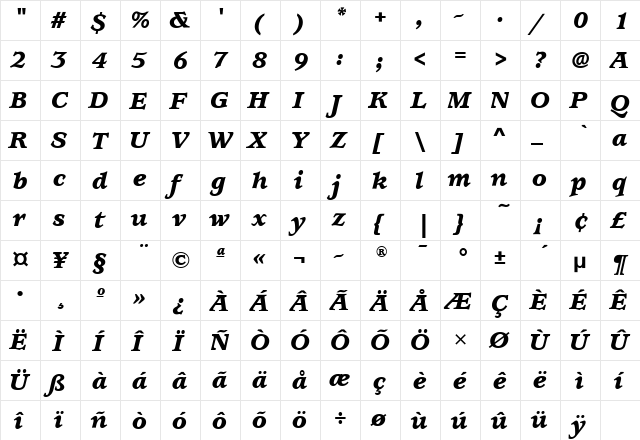
UsherwoodMdITC Black Italic
Design Context for UsherwoodMdITC Typeface
UsherwoodMdITC echoes the hand-painted signage and woodblock typography of the American frontier, with a warm, rugged personality. The dynamic lean of this cut emphasises speed and emphasis in any layout.
A natural fit for craft spirits, ranch branding, rodeo events, and Americana-inspired design work.
Font Pairing: Combine UsherwoodMdITC with a simple slab or neutral sans — period-accurate companions reinforce the vintage feel without competing for attention.
Pro Tip: Use UsherwoodMdITC for short, impactful bursts of text — it shines in poster headlines and product names rather than extended copy.